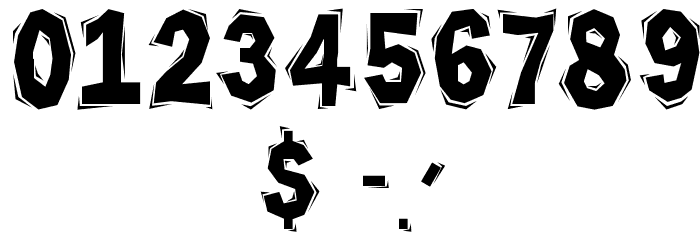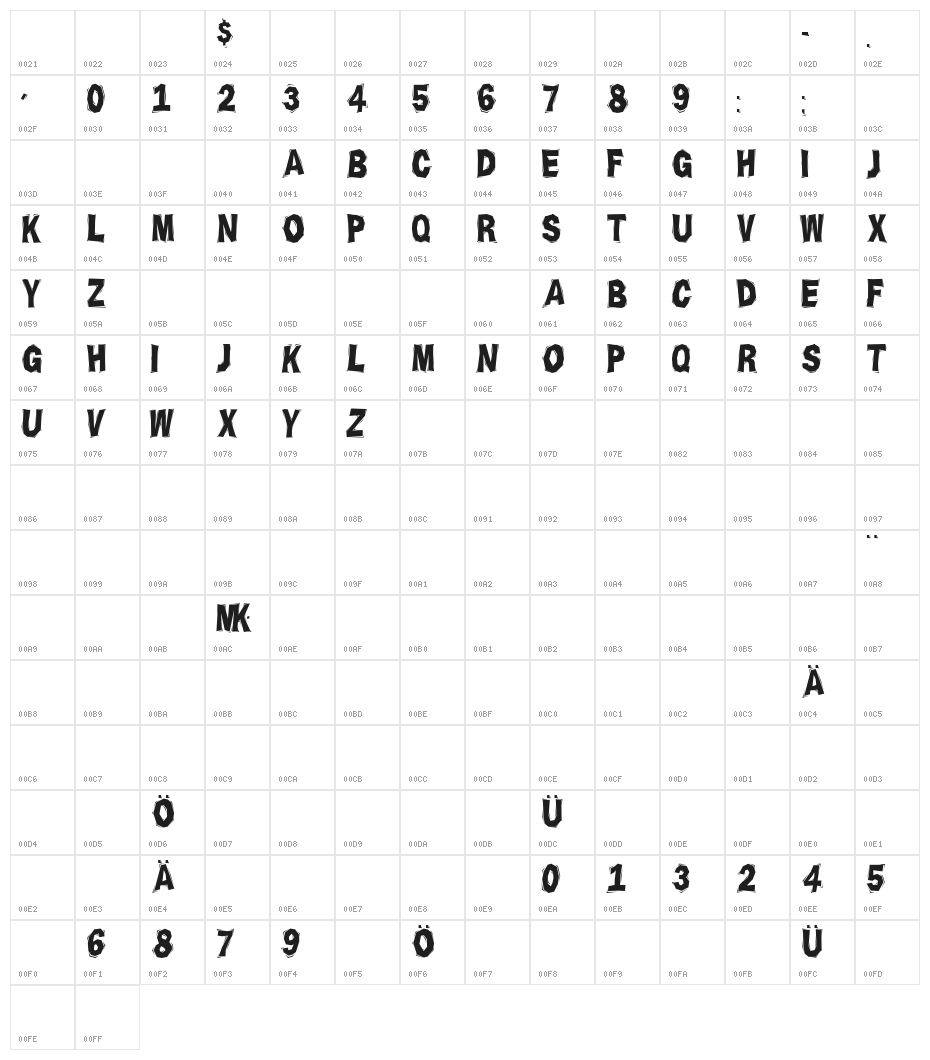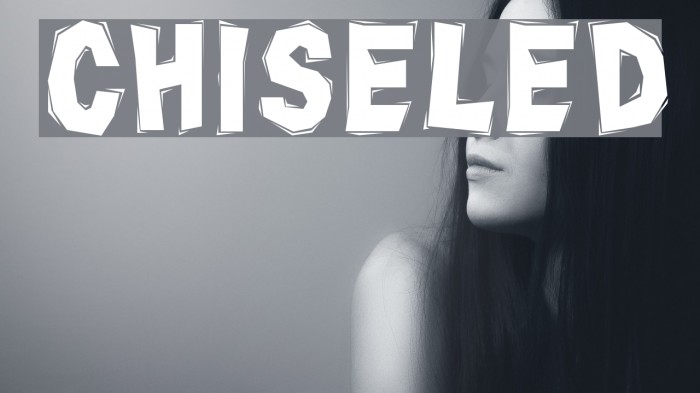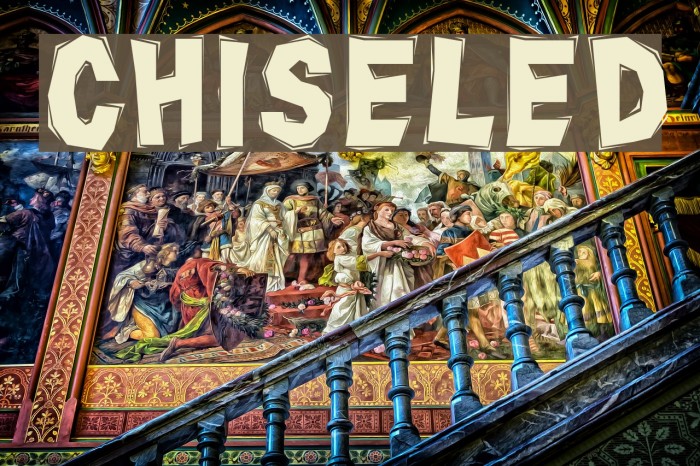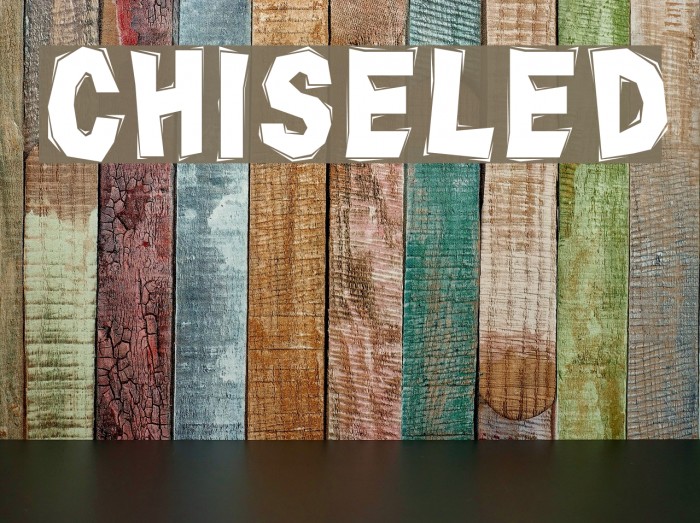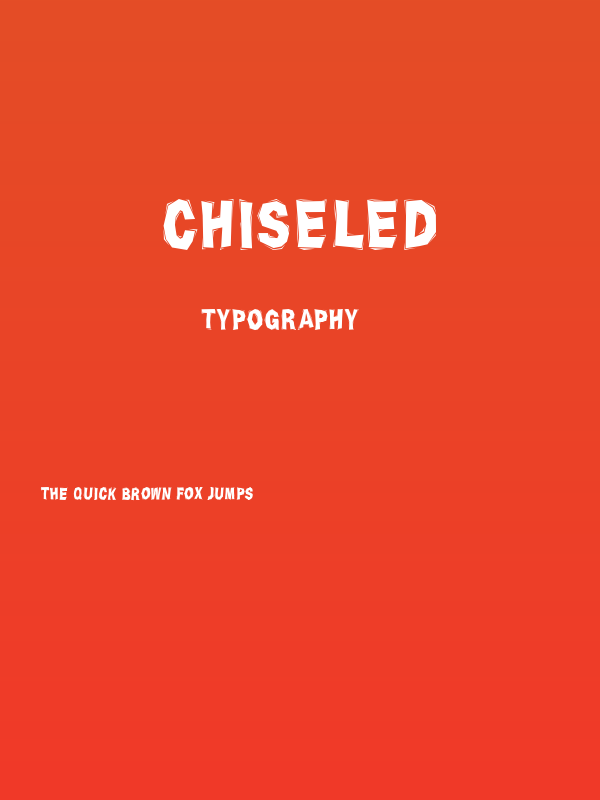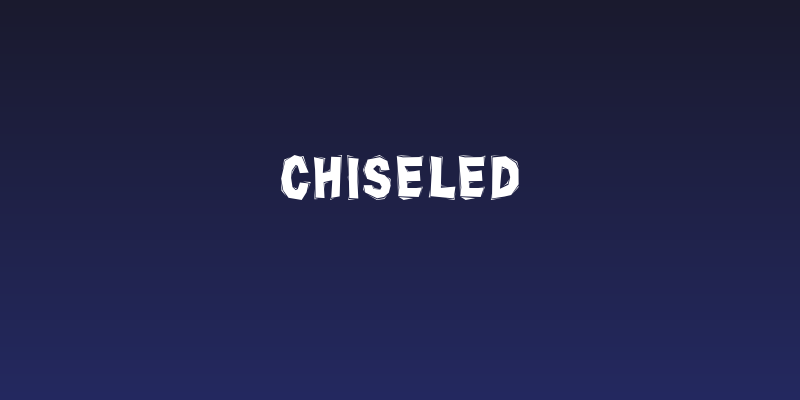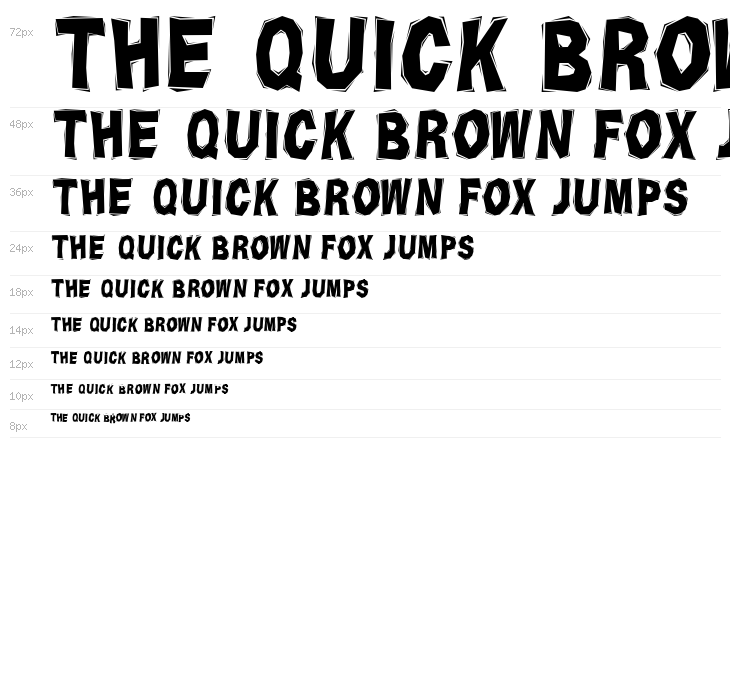
Chiseled Font
Chiseled Description
This font features a bold and dynamic design with a chiseled, three-dimensional effect that gives each character a sense of depth and solidity. The uppercase letters are particularly striking, with sharp angles and a strong presence that commands attention. The numbers and special characters maintain this bold aesthetic, ensuring consistency across all elements. The font's unique style makes it ideal for projects that require a strong visual impact, such as posters, headlines, and branding materials. Its decorative nature adds a touch of creativity and flair, making it suitable for artistic and modern designs.
| Proposed Projects | Ideal for posters, headlines, branding, and any project needing a strong visual impact. |